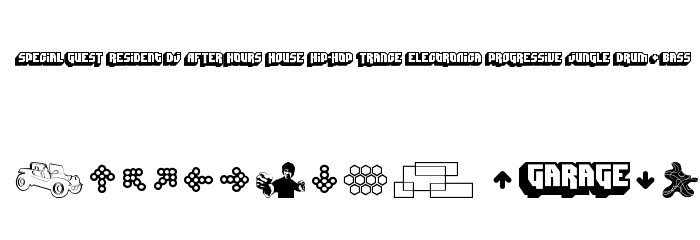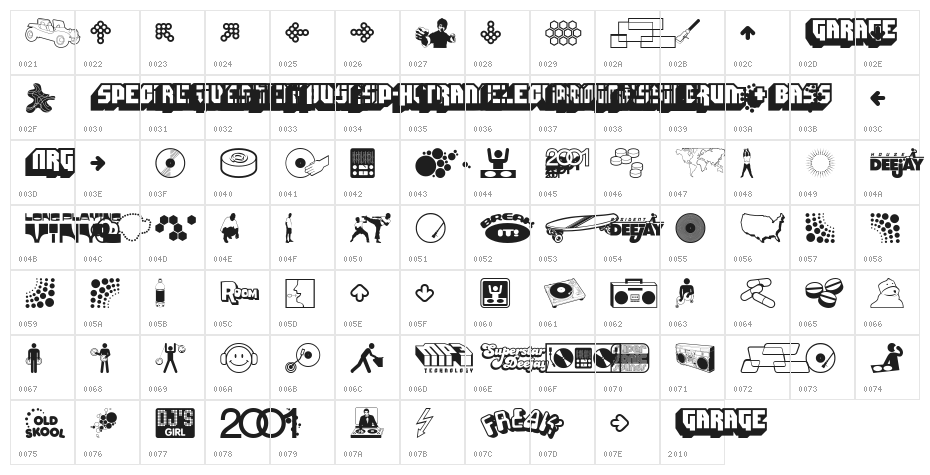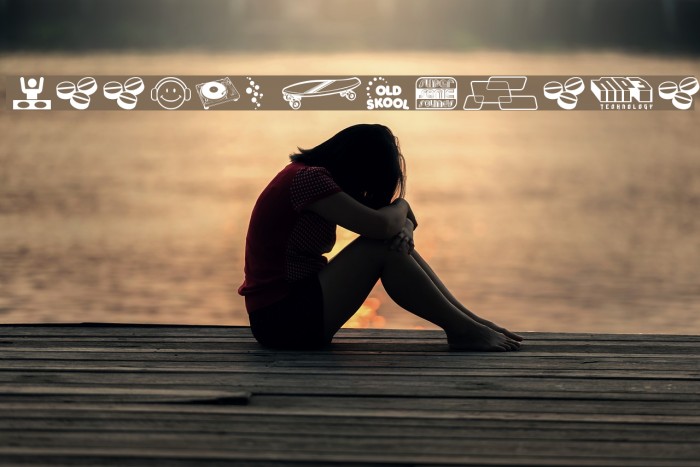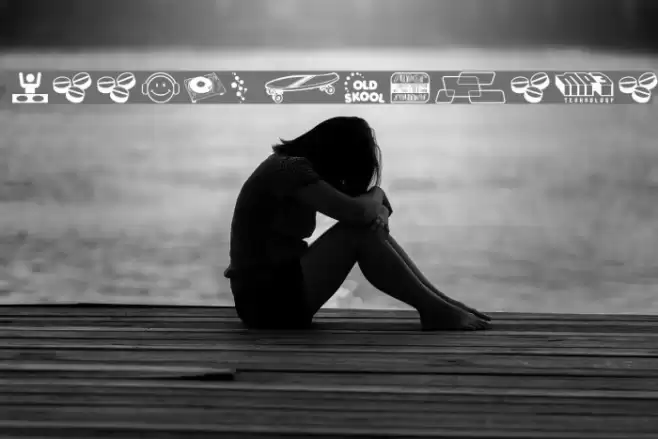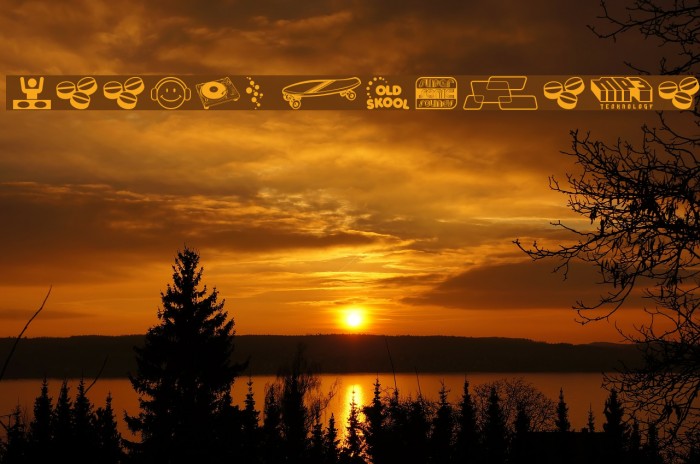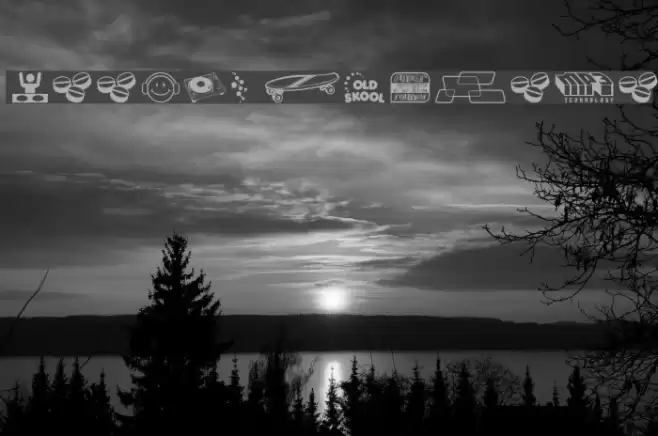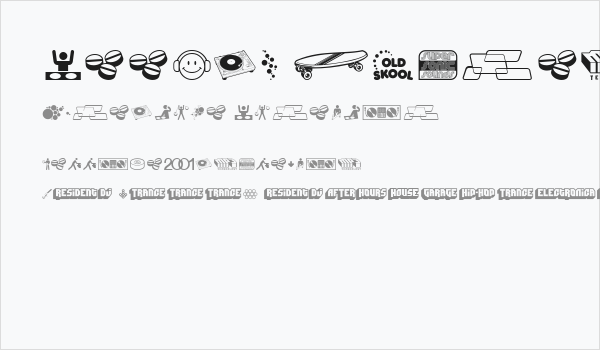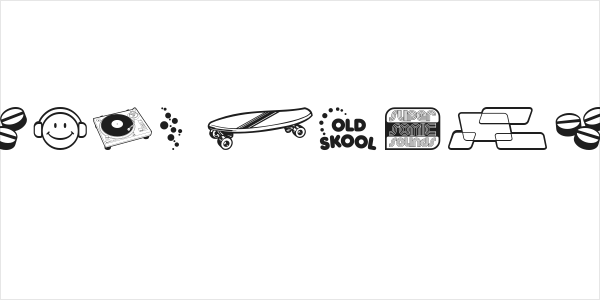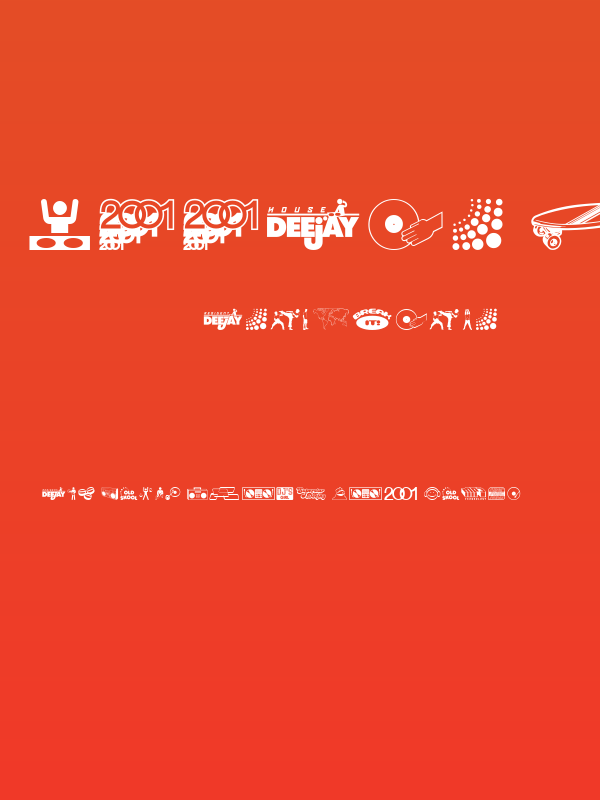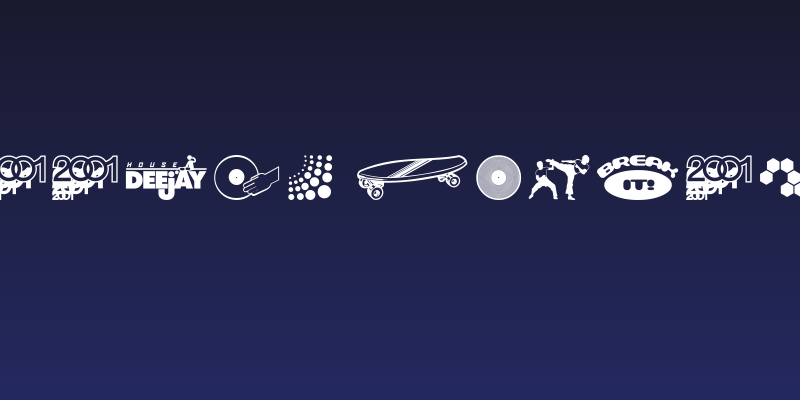
Deejay Supreme Font
Deejay Supreme Description
This is not a traditional font but rather a collection of DJ and music-themed icons and graphics. The design includes various elements such as turntables, records, musical notes, and DJ equipment, all stylized in a bold and playful manner. The graphics are highly detailed and cater to a music-centric theme, making them suitable for creative projects related to music, nightlife, and entertainment. The icons are diverse, featuring both modern and retro elements, and they convey a sense of energy and movement.
| Use Case | Logos, Posters, Branding |
| Proposed Projects | Ideal for music event posters, DJ branding, club flyers, and entertainment websites. |